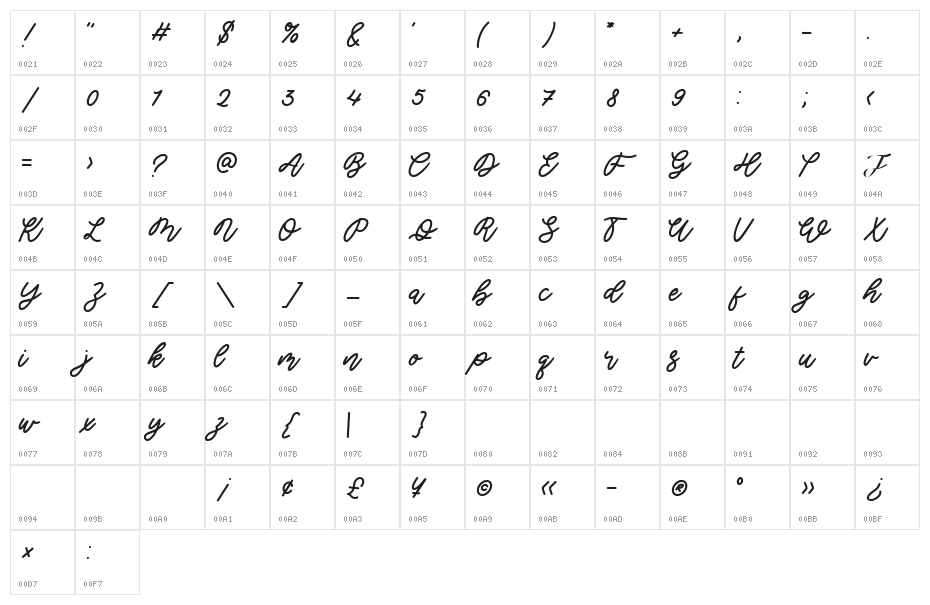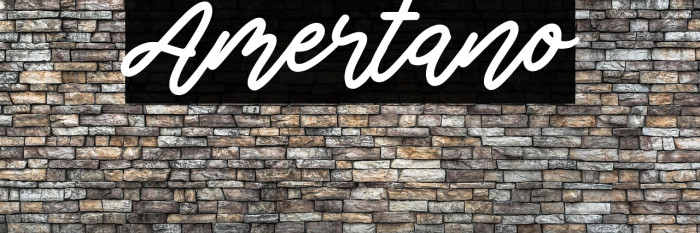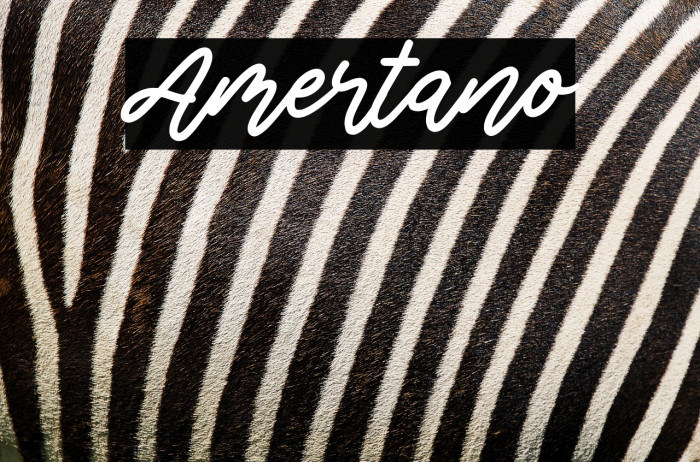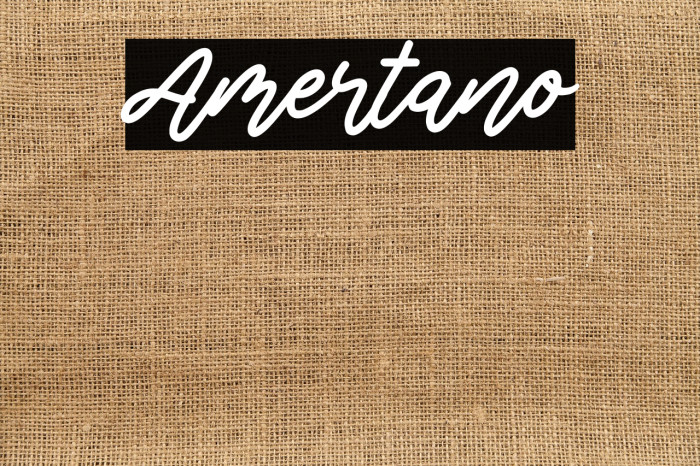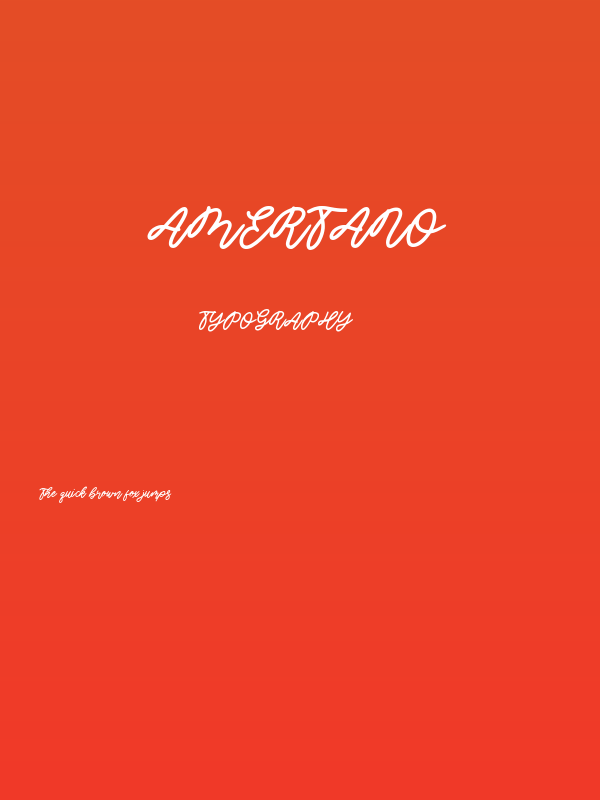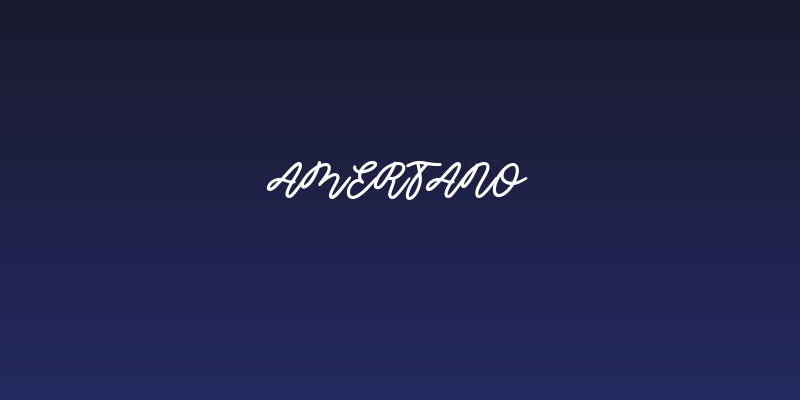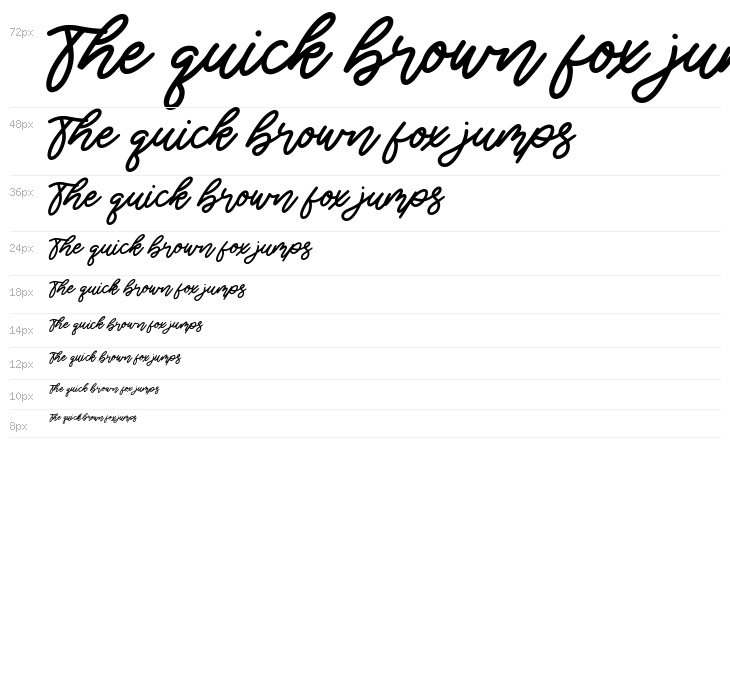
Amertano Font
Amertano Description
This elegant script font features fluid, cursive strokes that mimic natural handwriting. The characters are interconnected, creating a seamless flow across words. The uppercase letters are slightly more ornate, with loops and swirls that add a touch of sophistication. Lowercase letters maintain a consistent height, contributing to a balanced appearance. The numerals are clear and maintain the same cursive style, ensuring readability. Special characters are thoughtfully designed to match the overall aesthetic, making this font versatile for various applications.